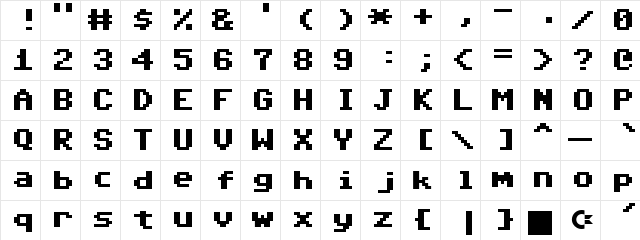
Adore64 Regular
Design Context for Adore64 Typeface
Adore64 offers clean, dependable letterforms without strong stylistic allegiance, making it a practical choice for designers who need flexibility.
Pro Tip: Use Adore64 in both headline and body roles to test its range before committing to a single application.